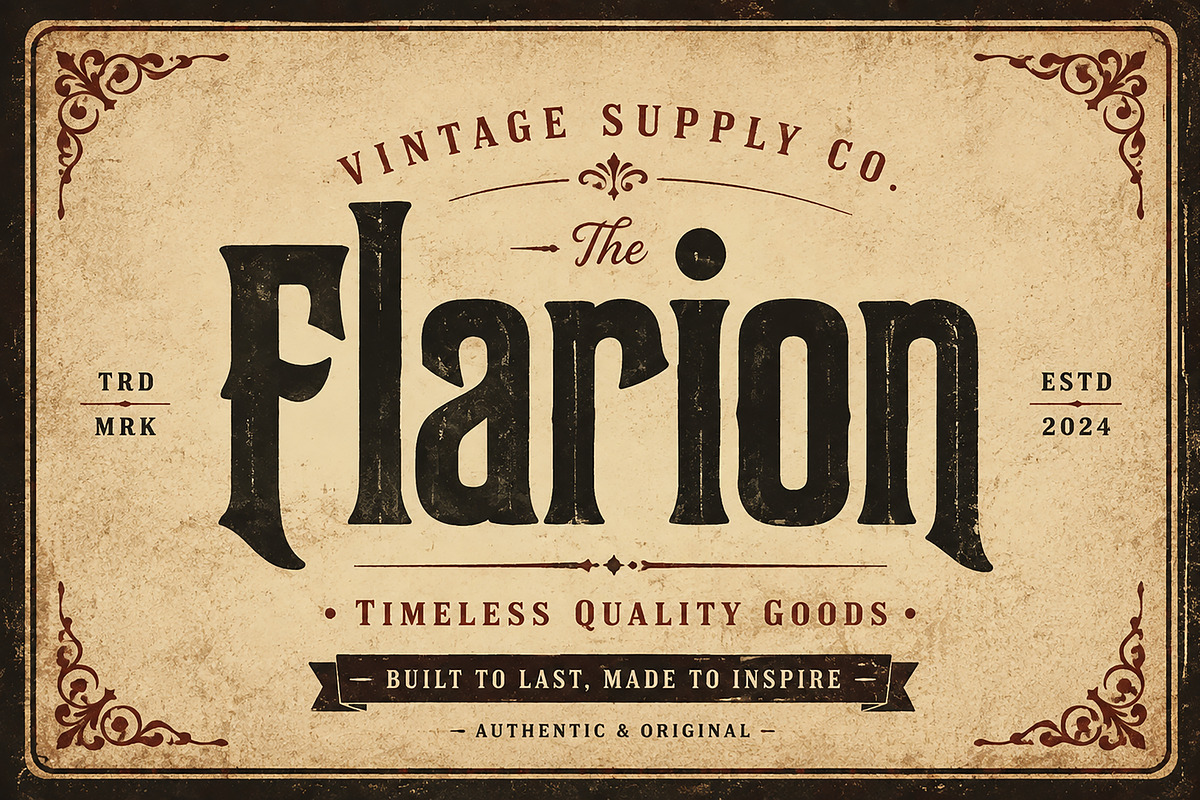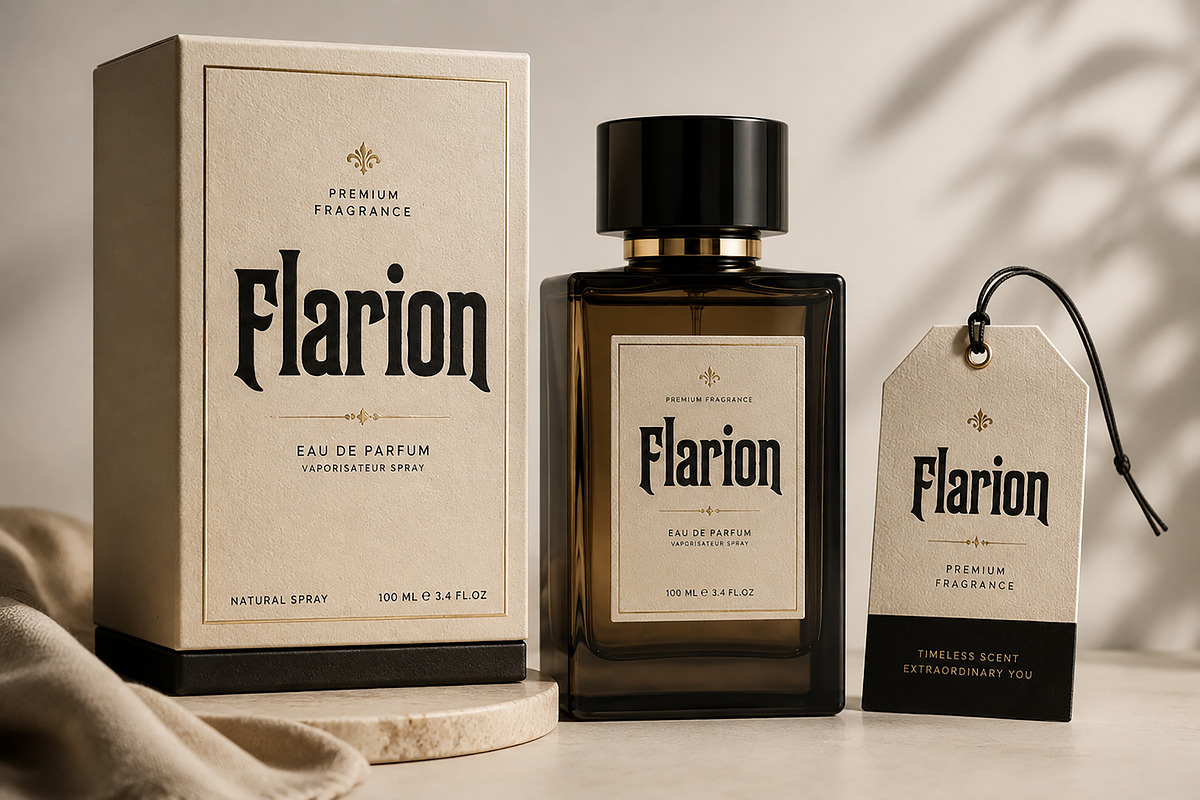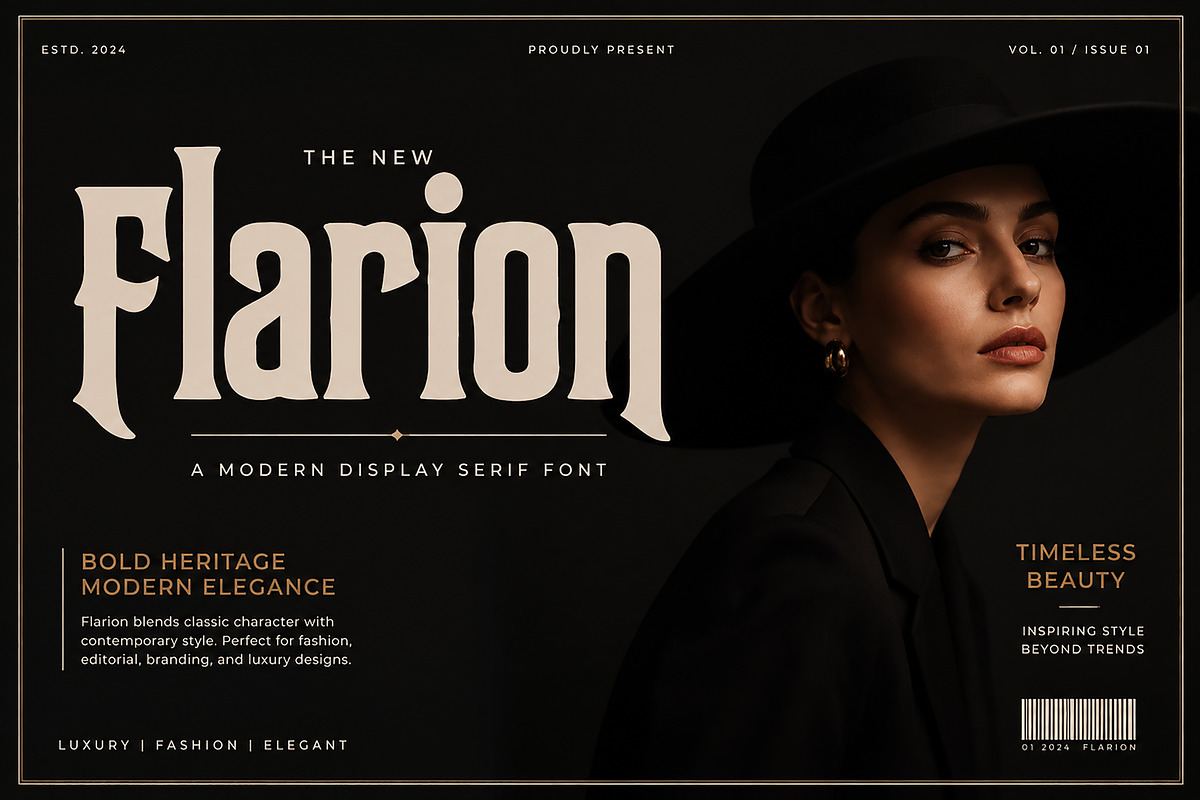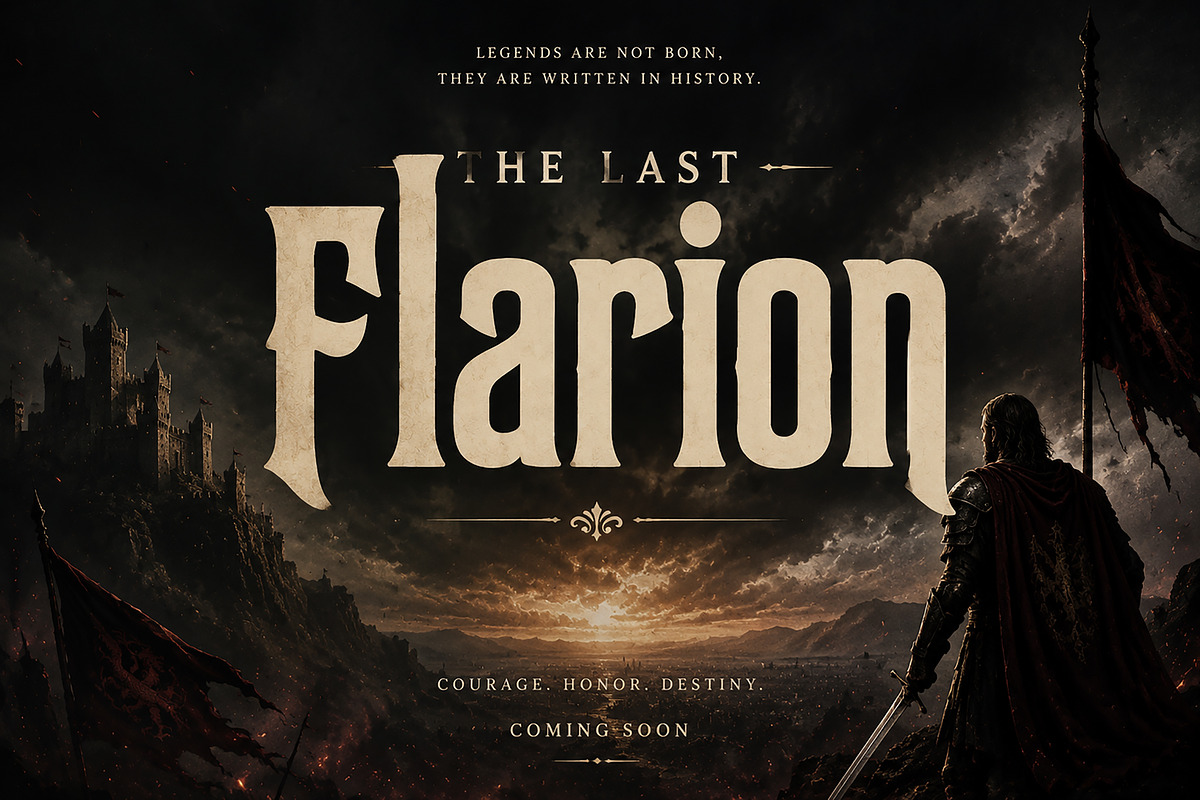
Flarion
Flarion – Vintage Display Serif Font
Flarion is a bold and distinctive display serif font inspired by vintage aesthetics, editorial luxury, and cinematic typography. With its strong character, dramatic shapes, and elegant curves, Flarion brings a powerful visual identity to any creative project.
Designed for designers who want a unique and memorable typeface, Flarion works beautifully for luxury branding, fashion editorials, vintage posters, packaging designs, movie titles, logos, book covers, and premium marketing materials.
Its bold presence and classic personality make it perfect for projects that need a timeless yet modern visual style.
Luxury Brand Identity
Fashion Magazine Design
Vintage Logo Design
Poster & Editorial Design
Movie Title Design
Album Artwork
Boutique Branding
Advertising Materials
✔ Bold Display Serif Style
✔ Vintage & Elegant Character
✔ Strong Editorial Look
✔ Perfect for Headlines and Branding
✔ High-Impact Typography Style
✔ Professional Design Ready
Bring a bold vintage atmosphere and premium personality to your designs with Flarion.